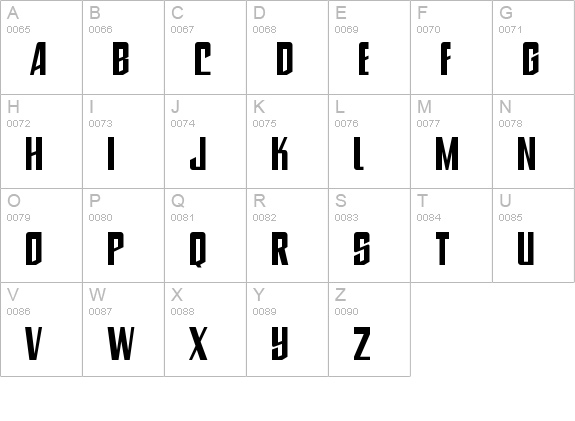
CCToBeContinued-Bold Font Details
CCToBeContinued-Bold is a strong, high-contrast variant in the CCToBeContinued typeface family \xE2\x80\x94 well suited to headlines, attention-grabbing titles, and strong calls-to-action.
CCToBeContinued-Bold font is a bold and eye-catching typeface designed for making a statement. Its strong and impactful characters are perfect for headlines, titles, and any other design elements that need to stand out. The boldness of this font makes it ideal for creating a powerful visual impact and grabbing attention. Not only does CCToBeContinued-Bold font exude confidence and strength, but it also conveys a sense of modernity and style. Its sleek lines and sharp edges give it a contemporary feel that is perfect for a wide range of design projects. And the best part? CCToBeContinued-Bold font is available for free download at FontsMarket.com. So you can add this striking typeface to your font library without any cost. Don't miss out on the opportunity to enhance your designs with the bold and impactful CCToBeContinued-Bold font today!